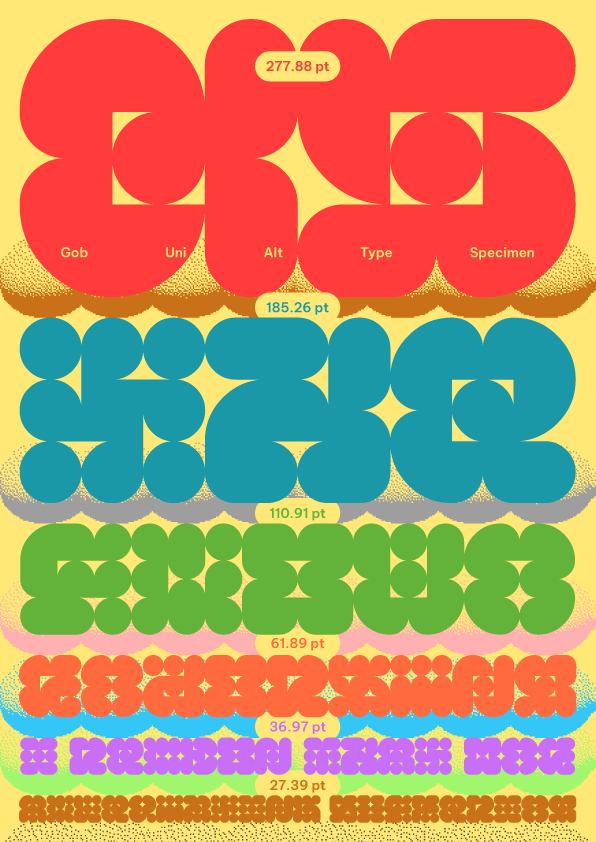
• Gob (a portmanteau of ‘gastric’ and ‘blob’) is a playful display font family with knobbly silhouettes, not unlike a digestive tract. What began as an inverse typographic experiment evolved into multiple styles (Verti, Hori, and Uni with a set of alternates) through stretching, squeezing, and reworking its stroke segments. Later, a FontStruct colour font competition pushed Gob further, spawning the pixelated, shadow-layered Pixi variation.
Hello, its this a black version of Gob Pixi (More Tini or 3x3) Its so Tini and cute!
@JeycoMonge: Thank you! If you are looking for the 'black' version of Gob Pixi, please take a look at Gob Hori. The download link is in the description! 😃
Maybe looks like this or the same letters styles (Too Gob Verti and Gob Uni) That 3 fonts are changed and now...little lazy work.